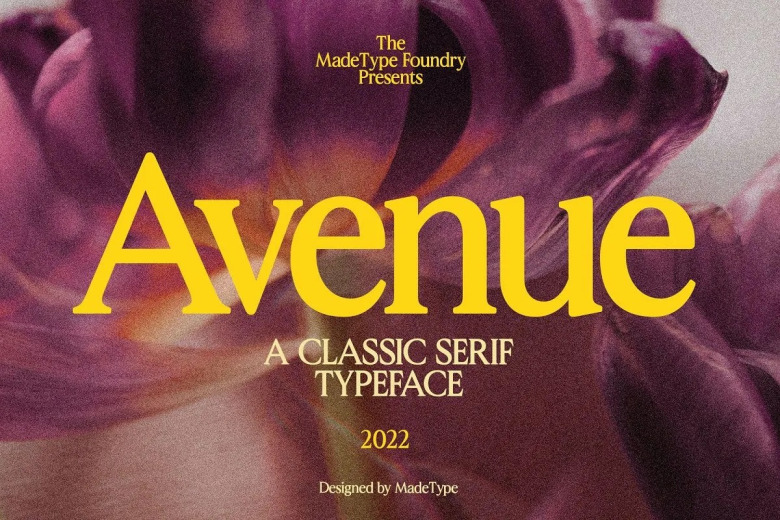
Avenue Font
Avenue Bold and Fresh Serif Don’t be shy about slotting it into your go-to creations; you’ll be surprised at what and exquisite result uber talented folks can come up with. Perfect for branding projects, Logo design, Clothing Branding, product packaging, magazine headers — or simply as a stylish text overlay to any background image.
Avenue Serif Font